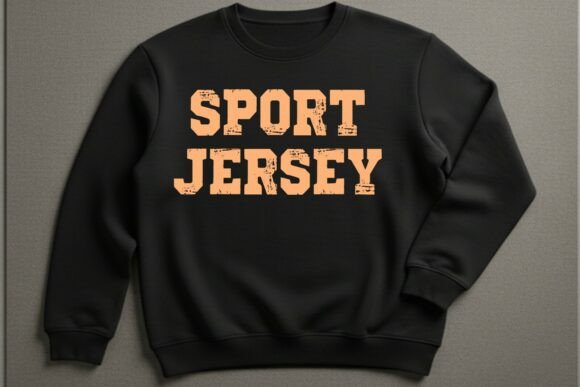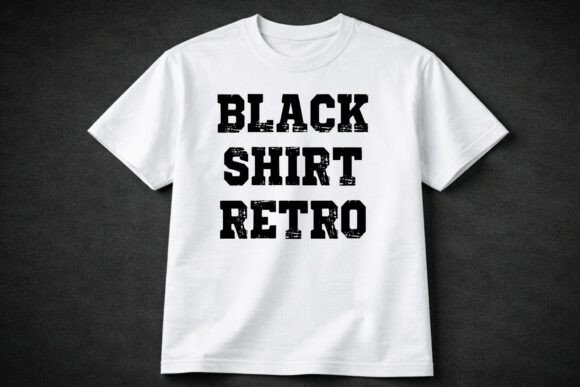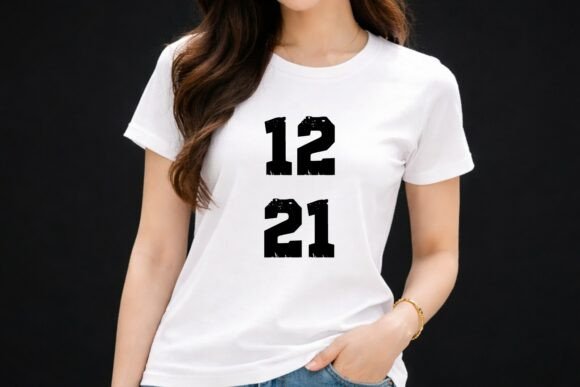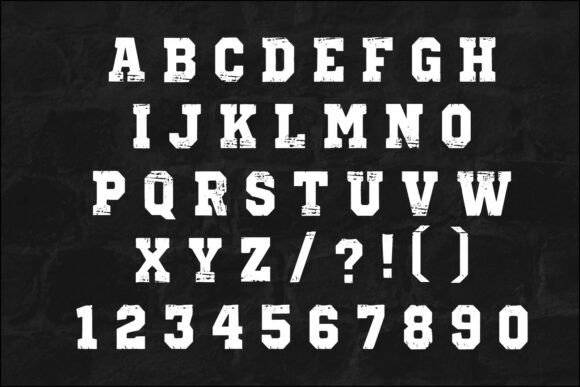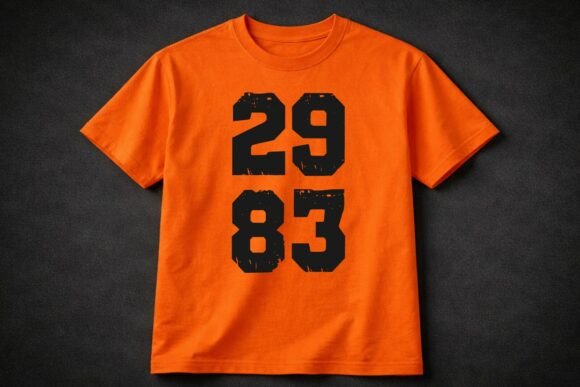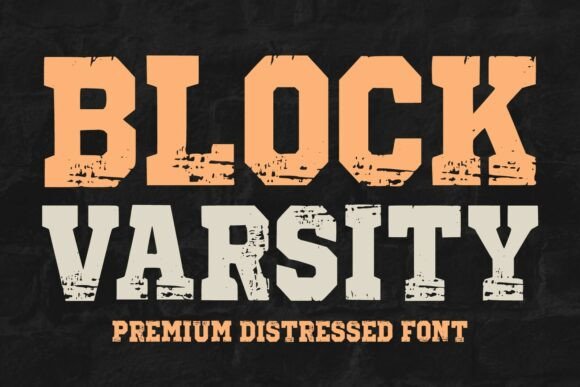
Introducing Block Varsity Font: The Ultimate Choice for Bold and Authentic Designs
Are you looking for a font that exudes strength, energy, and a touch of nostalgia? Look no further than Block Varsity Font, a bold and powerful display font that combines classic collegiate letterforms with a rugged distressed texture. Inspired by vintage varsity and athletic typography, Block Varsity delivers a strong, worn, and authentic look that stands out in any design.
What Makes Block Varsity Font So Special?
Block Varsity Font is more than just a font – it’s a statement piece. Its bold structure and grunge details make it ideal for impactful headlines and vintage-style visuals. The font’s classic collegiate letterforms evoke a sense of nostalgia and tradition, while its rugged distressed texture adds a touch of grit and authenticity.
The Perfect Font for Sports Branding and More
Block Varsity Font is perfect for a wide range of design projects, including sports branding, team logos, apparel, posters, packaging, and retro-themed projects. Whether you’re designing a logo for a sports team, creating a poster for a fitness event, or crafting a brand identity for a athletic wear company, Block Varsity Font is the perfect choice.
Key Features of Block Varsity Font
- Bold and powerful display font: Block Varsity Font is designed to make a statement, with bold and powerful letterforms that demand attention.
- Classic collegiate letterforms: Inspired by vintage varsity and athletic typography, Block Varsity Font features classic collegiate letterforms that evoke a sense of nostalgia and tradition.
- Rugged distressed texture: The font’s rugged distressed texture adds a touch of grit and authenticity to any design.
- Perfect for sports branding and more: Block Varsity Font is ideal for sports branding, team logos, apparel, posters, packaging, and retro-themed projects.
How to Use Block Varsity Font in Your Designs
Block Varsity Font is incredibly versatile and can be used in a wide range of design projects. Here are a few ideas to get you started:
- Sports branding: Use Block Varsity Font to create a bold and powerful logo for a sports team or athletic wear company.
- Team logos: Create a custom logo for a sports team or club using Block Varsity Font.
- Apparel design: Use Block Varsity Font to create eye-catching apparel designs for athletic wear companies or sports teams.
- Poster design: Create bold and impactful posters for fitness events or sports tournaments using Block Varsity Font.
- Packaging design: Use Block Varsity Font to create eye-catching packaging for athletic wear companies or sports equipment manufacturers.
Tips and Tricks for Getting the Most Out of Block Varsity Font
Here are a few tips and tricks for getting the most out of Block Varsity Font:
- Use it boldly: Block Varsity Font is designed to make a statement, so don’t be afraid to use it boldly in your designs.
- Experiment with colors: Try pairing Block Varsity Font with bold and bright colors to create eye-catching designs.
- Add texture and grunge: Experiment with adding texture and grunge to your designs to give them a worn and authentic look.
Block Varsity Font is a bold and powerful display font that’s perfect for designers and crafters looking to add a touch of strength and energy to their designs. With its classic collegiate letterforms, rugged distressed texture, and bold structure, Block Varsity Font is ideal for sports branding, team logos, apparel, posters, packaging, and retro-themed projects. So why wait? Download Block Varsity Font today and start creating bold and authentic designs that stand out from the crowd!